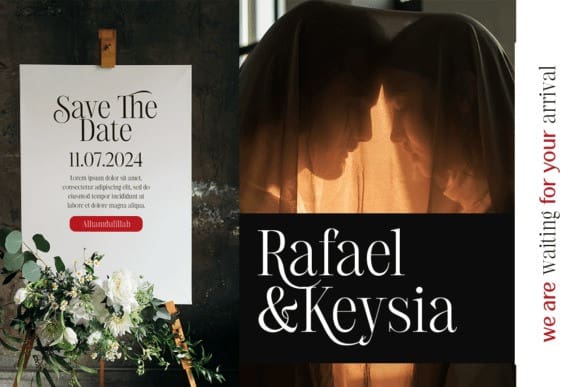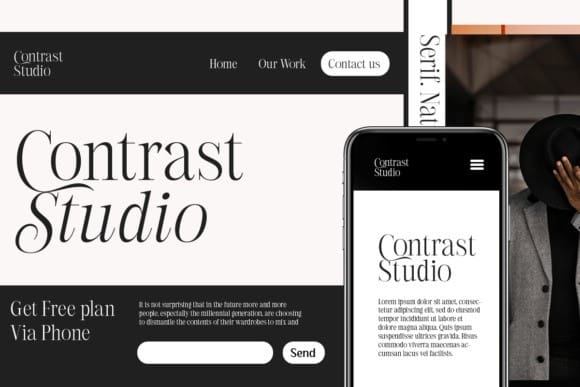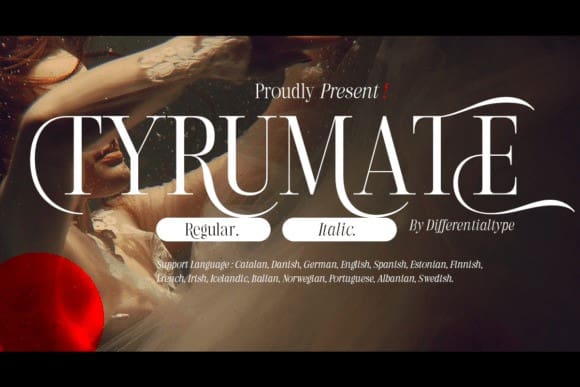
Tyrumate Font
Tyrumate Font is a bold and assertive serif font. No matter the topic, this font will be an incredible asset to your fonts’ library, as it has the potential to elevate any creation.